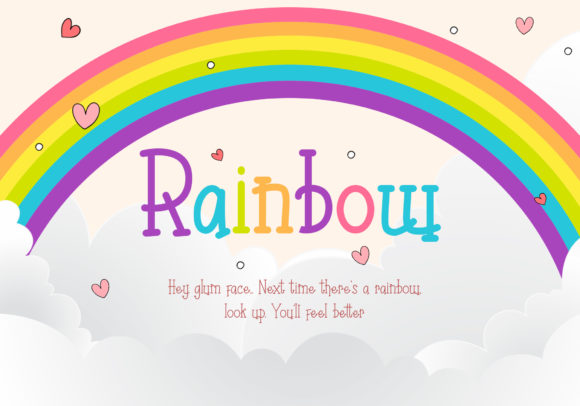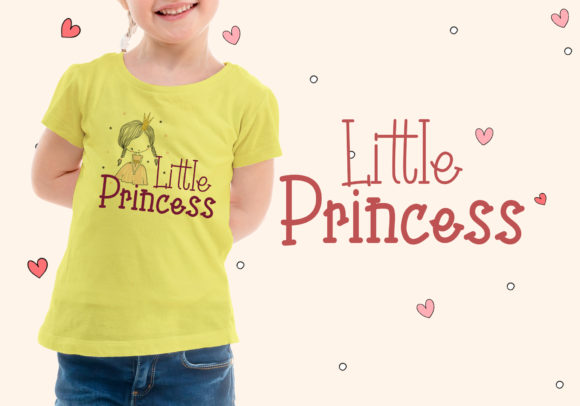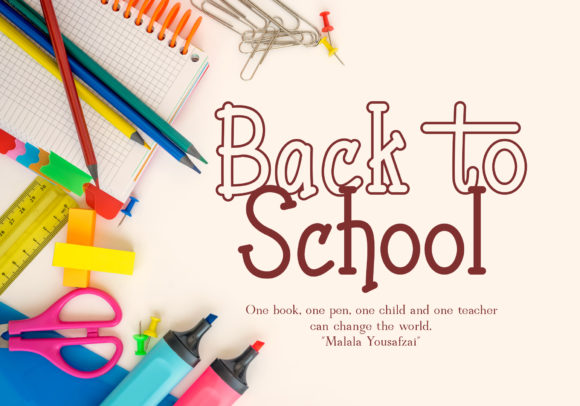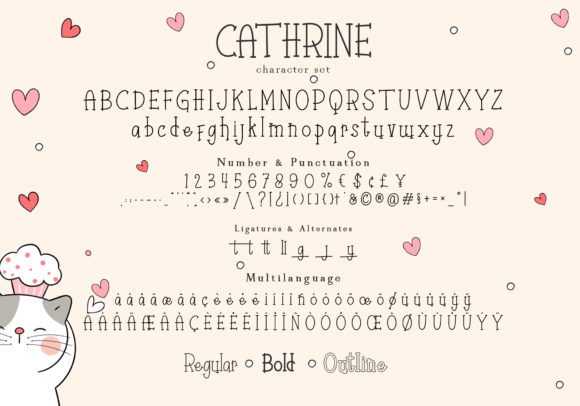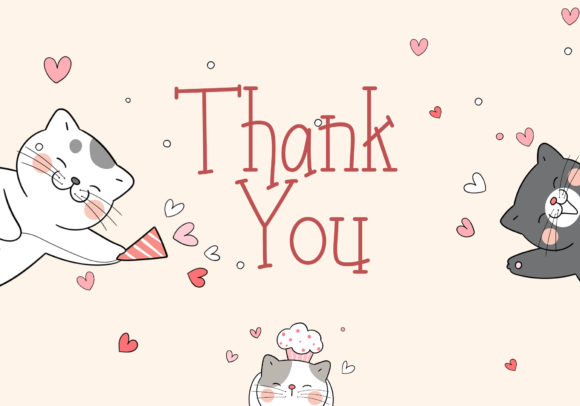
Introducing Chatrine Font: The Ultimate Display Font for Creative Standouts
Are you tired of using the same old fonts for your creative projects? Look no further than Chatrine Font, a captivating display font that embodies fun, quirkiness, and authenticity. With Chatrine, you can turn any creative idea into a true standout that grabs attention and leaves a lasting impression.
The Personality of Chatrine Font
Cathrine, as the font is also known, has a unique personality that sets it apart from other display fonts. Its enchanting and whimsical feel makes it perfect for designers and crafters who want to add a touch of playfulness to their work. Whether you’re creating a logo, poster, or social media graphic, Chatrine Font is sure to bring a smile to your audience’s faces.
Key Features of Chatrine Font
- Unique and Quirky Design: Chatrine Font boasts a one-of-a-kind design that’s both fun and eye-catching. Its distinctive letterforms and charming details make it a standout in any creative project.
- Highly Versatile: This display font is perfect for a wide range of applications, from branding and advertising to packaging and digital media.
- Easily Readable: Despite its playful design, Chatrine Font remains highly legible, making it suitable for use in various contexts, including titles, headings, and short paragraphs.
- Instant Recognition: With Chatrine Font, you can create memorable and recognizable visuals that leave a lasting impression on your audience.
Use Cases for Chatrine Font
So, how can you use Chatrine Font to elevate your creative projects? Here are a few inspiring ideas:
- Branding and Logos: Create a unique and memorable brand identity with Chatrine Font. Its quirky design makes it perfect for businesses that want to stand out from the crowd.
- Posters and Flyers: Add a touch of whimsy to your promotional materials with Chatrine Font. Its eye-catching design is sure to grab attention and generate interest.
- Social Media Graphics: Make your social media posts more engaging and shareable with Chatrine Font. Its playful design is perfect for creating fun and interactive content.
- Packaging Design: Add a personal touch to your product packaging with Chatrine Font. Its unique design makes it perfect for brands that want to create a memorable unboxing experience.
Tips for Using Chatrine Font
To get the most out of Chatrine Font, here are a few expert tips:
- Experiment with Colors: Chatrine Font looks great in a variety of colors, so don’t be afraid to experiment and find the perfect hue for your project.
- Mix and Match Fonts: Combine Chatrine Font with other fonts to create a unique and visually appealing typography scheme.
- Play with Layouts: Get creative with your layout and use Chatrine Font to create a stunning visual arrangement that captures attention.
In conclusion, Chatrine Font is a game-changing display font that embodies fun, quirkiness, and authenticity. With its unique design, versatility, and readability, it’s perfect for designers and crafters who want to create standout creative projects. Whether you’re looking to create a memorable brand identity, eye-catching poster, or engaging social media graphic, Chatrine Font is the ultimate choice. So why wait? Download Chatrine Font today and unleash your creativity!